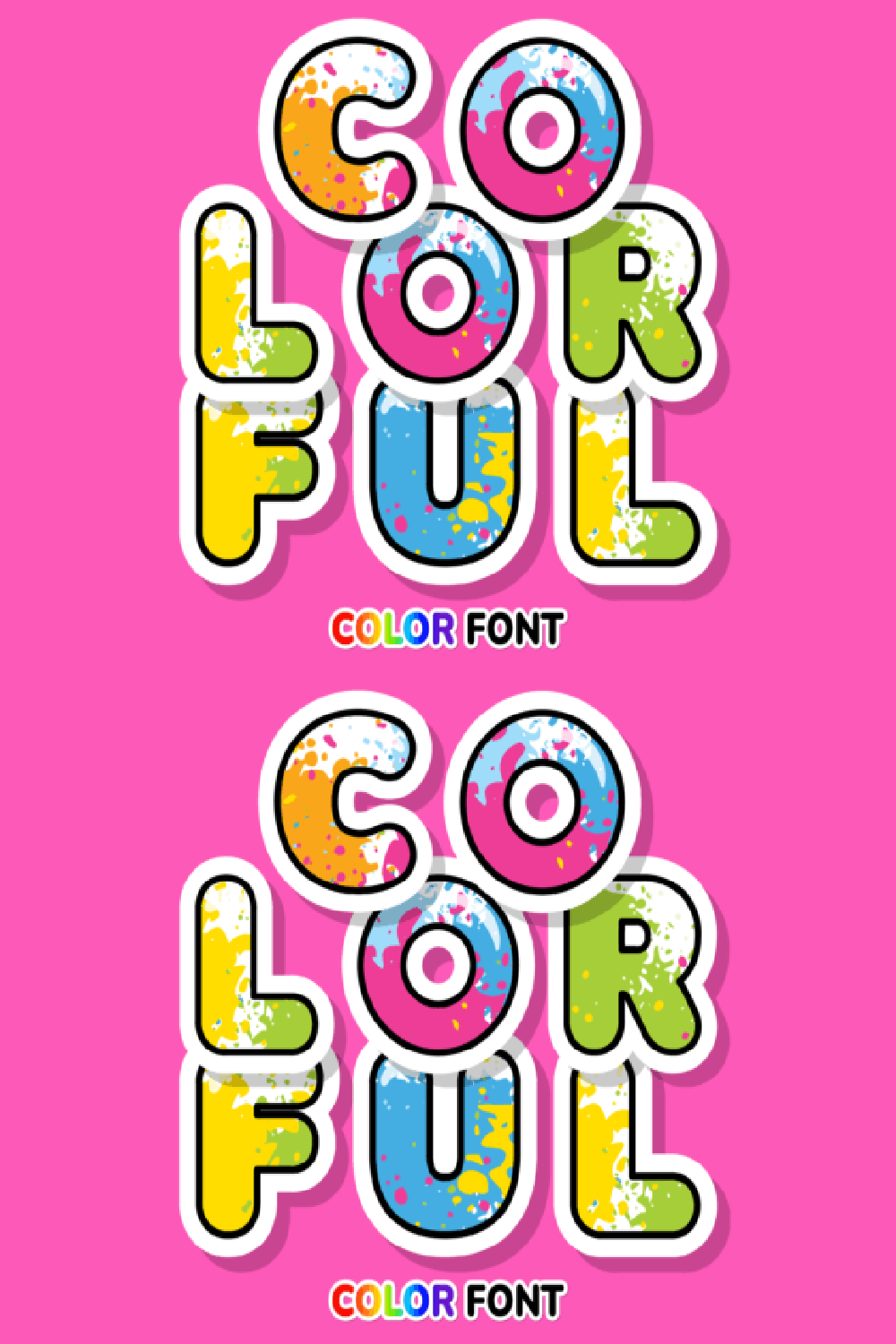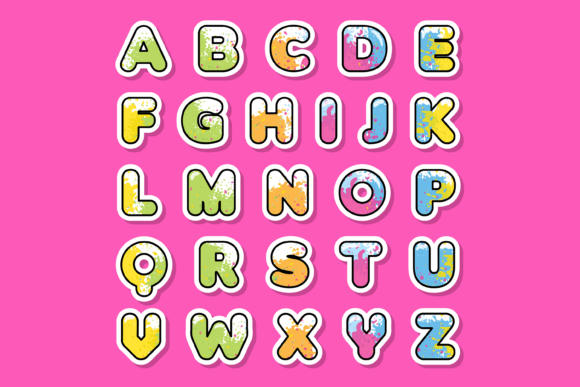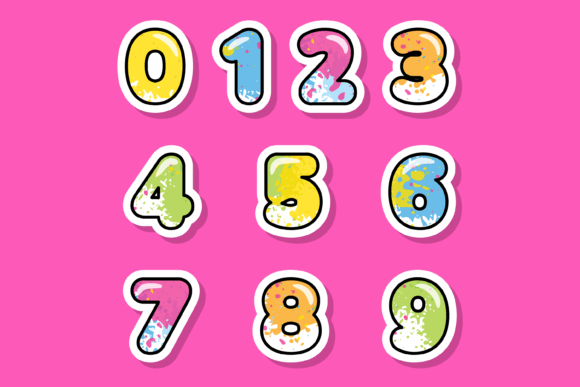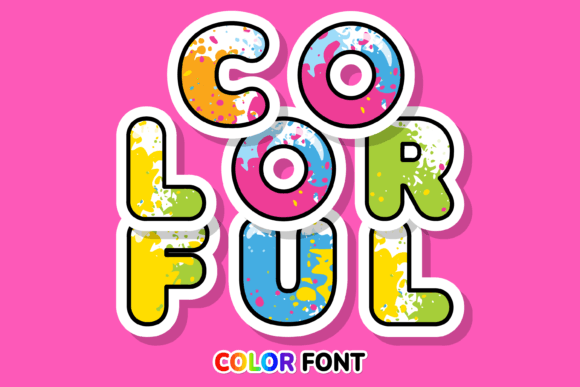
Colorful Font
About the Colorful Font
Experience the unique personality of Colorful Font, a font designed for impact. Colorful is an incredibly cool color font designed in the style of Splatter. Whether you use it for custom designs, DIY crafts, or just any creation that requires a lovely touch, this font will be an amazing choice.